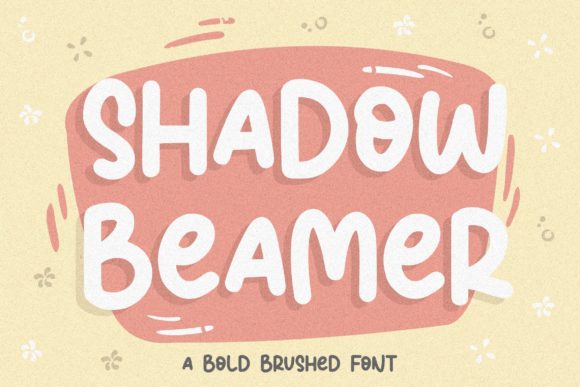
Step into the world of Shadow Beamer, a font that captures the essence of charm and playfulness. Its whimsical strokes and delightful curves bring a touch of uniqueness to any project, transforming your words into artistic masterpieces.
Indulge in the magic of Shadow Beamer's personality. Its bold presence commands attention, while its friendly demeanor invites warmth and approachability. It dances across the page, leaving a trail of joy and inspiration in its wake.
With Shadow Beamer, you'll find yourself embarking on a creative adventure. Whether you're crafting an eye-catching logo, designing a vibrant poster, or composing an unforgettable invitation, this font will be your trusted companion.
Visualize your words adorned with Shadow Beamer's enchanting curves. They'll leap off the page, captivating your audience with their playful energy. Each letter carries a story, inviting readers to delve into the depths of your imagination.
Unleash your creativity and watch as Shadow Beamer transforms your ideas into tangible works of art. It's the perfect font for adding a dash of personality to your designs, capturing the attention of your audience, and leaving a lasting impression.
Don't let your projects remain ordinary. Embrace the magic of Shadow Beamer and let your creativity soar. Make a statement that reflects your unique style and captivates the hearts of all who lay their eyes upon it.